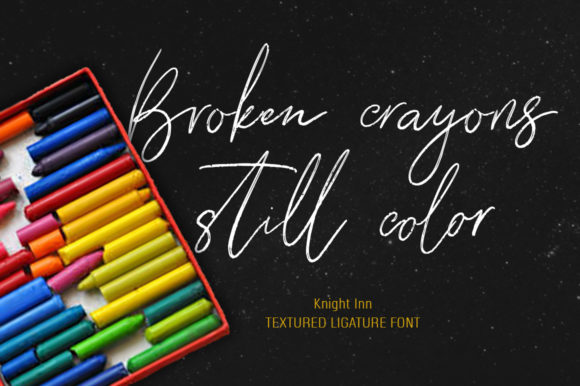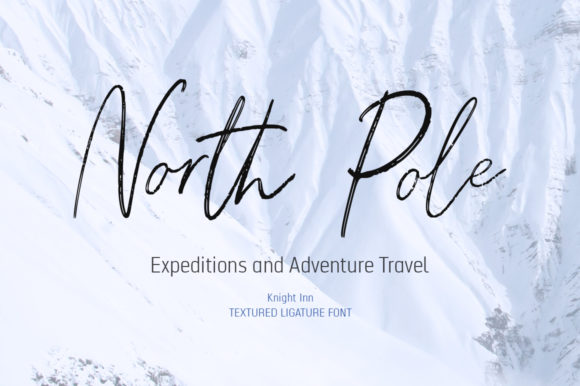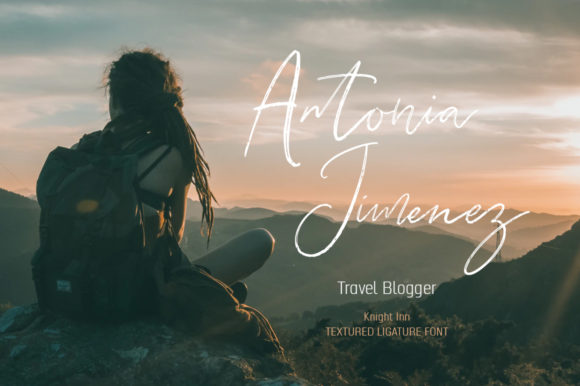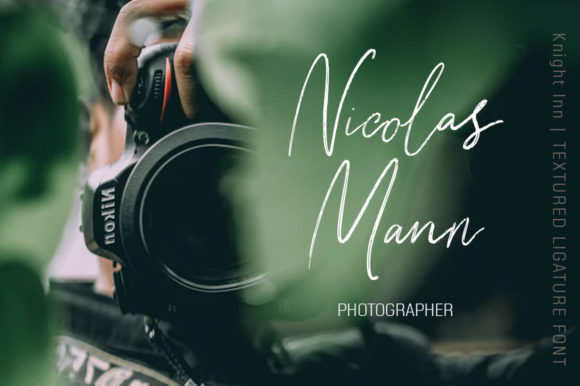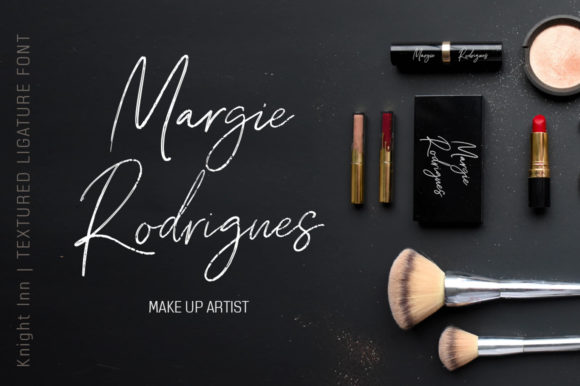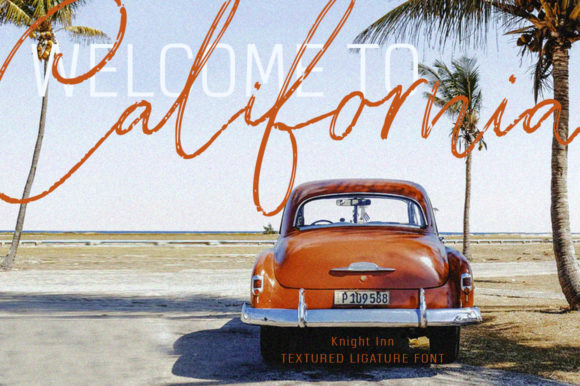
Introduction to Knights Inn Font
Have you ever found yourself staring at a blank canvas, wondering how to bring your creative vision to life? As designers, we’ve all been there – searching for that perfect font to elevate our project and make it truly unforgettable. For me, that moment came when I stumbled upon the enchanting Knights Inn Font. Its delicate script texture and playful feel immediately captured my attention, and I knew I had to learn more.
With its transparent background and free download options, this design resource is a game-changer for any creative project. Whether you’re working on a branding campaign or a personal art piece, Knights Inn Font is sure to add a touch of sophistication and whimsy. As a valuable addition to your design arsenal, this high-quality font is a must-have for any designer looking to take their work to the next level.
Key Features of Knights Inn Font
- High-quality font designed for creative projects, ideal for use in various design resources.
- Features a transparent background, allowing for seamless integration with any design.
- Unique, modern design that adds a touch of sophistication to any creative project.
- Perfect for use in graphic design, digital art, and other creative pursuits where a high-quality font is essential.
Honest Review: Knights Inn Font
Here are some things that work well with the Knights Inn Font:
- ✨ The font has a unique, vintage feel that adds a touch of elegance to any design.
- ✨ The high-quality design ensures that the font looks great at various sizes and resolutions.
- ✨ The transparent background makes it easy to use the font on top of any image or color scheme.
- ⚠️ The font is a bit limited in terms of style options, which might not be suitable for every design project.
- ⚠️ The font doesn’t come with a complete character set, which might be a issue for those who need to use it for international characters.
The Knights Inn Font is perfect for various creative projects, including:
- Typography projects
Alternatives to Knights Inn Font
Open Sans is a modern sans-serif font suitable for a wide range of creative projects. It is free to download and offers a high-quality design resource for designers. When to use: For headings, body text, and design elements where a clean, minimalist aesthetic is desired.
Open Sans compares to Knights Inn Font by offering a more versatile and neutral design. While Knights Inn Font has a unique, distressed look, Open Sans provides a sleeker, more contemporary feel.
Great Vibes is a beautiful, elegant script font ideal for creative projects that require a touch of sophistication. It is free to download and offers a transparent background, making it perfect for designs where a subtle look is desired.